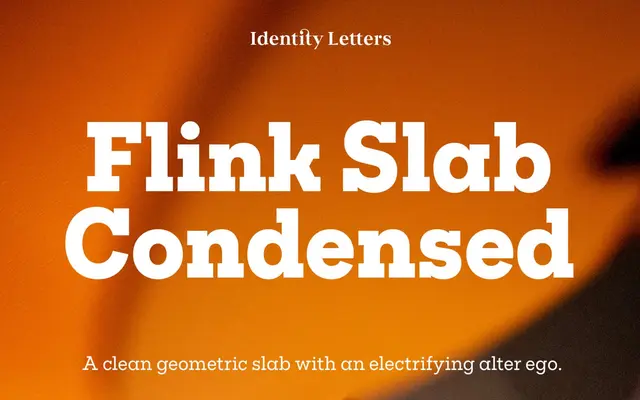
Flink Slab Condensed
A condensed geometric slab superfamily with unbracketed serifs, offered in nine weights with a high-energy 'Voltage' display sub-family.
Thirty-six fonts span nine weights from Thin to Black, each with a matching italic, across two sub-families: the standard condensed cut and the Voltage variant, which introduces expressive alternates tuned for display sizes. The family shares a common skeleton, vertical metrics and proportions with Flink Neue, making the two superfamilies directly interoperable. OpenType features include small capitals, oldstyle figures, alternate single- and double-storey letterforms, and a slashed zero.
Unbracketed slab serifs on a geometric skeleton place this firmly in the geometric slab category; the condensed width and Voltage display alternates extend its range without changing its structural classification.